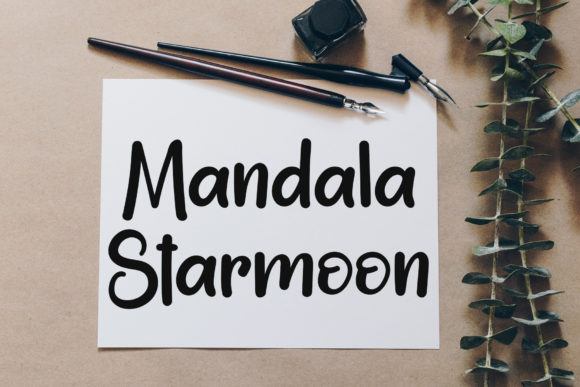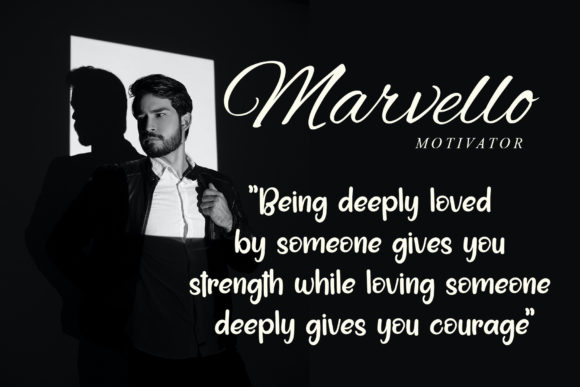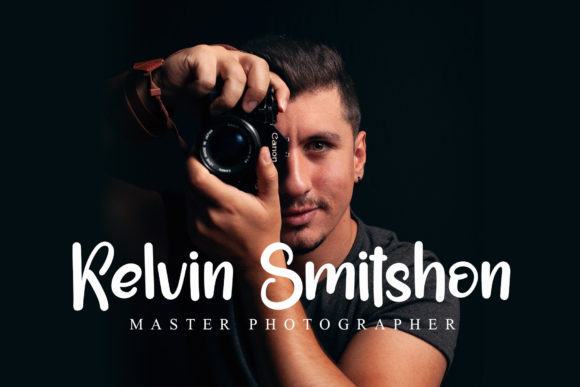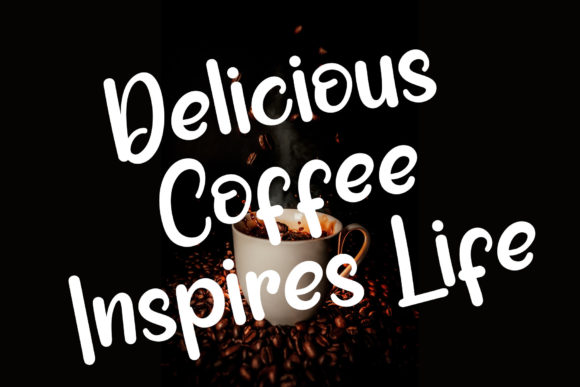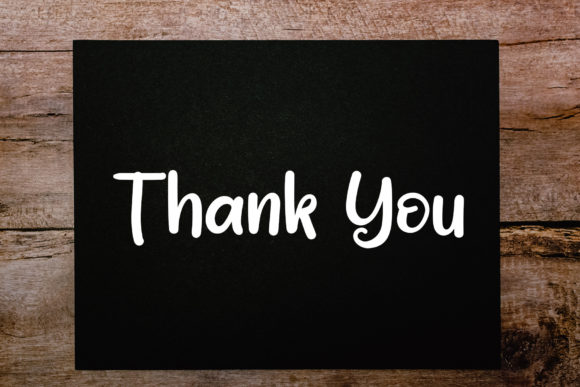
Bellinda Font: Elevate Your Designs with a Touch of Elegance
In the world of typography, fonts play a crucial role in conveying the tone and personality of a brand or design. For designers and crafters seeking a stylish and sophisticated touch, the Bellinda font is an excellent choice. This round-lettered handwritten font boasts smooth curves, making it perfect for fashion branding, editorial designs, and a wide range of creative projects.
What Makes Bellinda Font Stand Out?
Bellinda is a highly readable, smart, and stylish font that is sure to impress. Its unique characteristics include:
- Smooth Curves: The font’s rounded edges and smooth curves create a soft, elegant look that is ideal for designs requiring a touch of sophistication.
- Readability: Bellinda’s clear and concise lettering ensures that your message is conveyed effectively, making it perfect for body text, headings, and titles.
- PUA Encoding: This font is PUA (Private Use Area) encoded, allowing easy access to a wide range of glyphs and ligatures. This feature enables you to add a personal touch to your designs and explore new creative possibilities.
Perfect for Fashion Branding and Editorial Designs
Bellinda’s stylish and elegant appearance makes it an excellent choice for fashion branding, editorial designs, and high-end creative projects. Whether you’re designing a luxury fashion magazine, a high-end product catalog, or a brand identity for a fashion label, this font is sure to impress.
The font’s versatility also makes it suitable for a wide range of applications, including:
- Fashion branding and advertising
- Editorial designs, such as magazines and newspapers
- Product packaging and labeling
- Wedding and event stationery
- Digital media, such as social media graphics and website headers
Why Choose Bellinda Font?
When it comes to selecting a font for your design project, there are many options to consider. However, Bellinda stands out from the crowd due to its unique combination of style, readability, and versatility. Here are just a few reasons why you should consider adding Bellinda to your font collection:
- Elegant and Sophisticated: Bellinda’s smooth curves and rounded edges create a sophisticated and elegant look that is sure to elevate your designs.
- Easy to Read: The font’s clear and concise lettering ensures that your message is conveyed effectively, making it perfect for body text, headings, and titles.
- Highly Versatile: Bellinda is suitable for a wide range of applications, from fashion branding and editorial designs to digital media and product packaging.
- PUA Encoding: The font’s PUA encoding makes it easy to access a wide range of glyphs and ligatures, allowing you to add a personal touch to your designs.
In conclusion, the Bellinda font is an excellent choice for designers and crafters seeking a stylish, elegant, and versatile font for their creative projects. With its smooth curves, readability, and PUA encoding, this font is perfect for fashion branding, editorial designs, and a wide range of applications. Whether you’re a seasoned designer or just starting out, Bellinda is sure to become a valuable addition to your font collection.